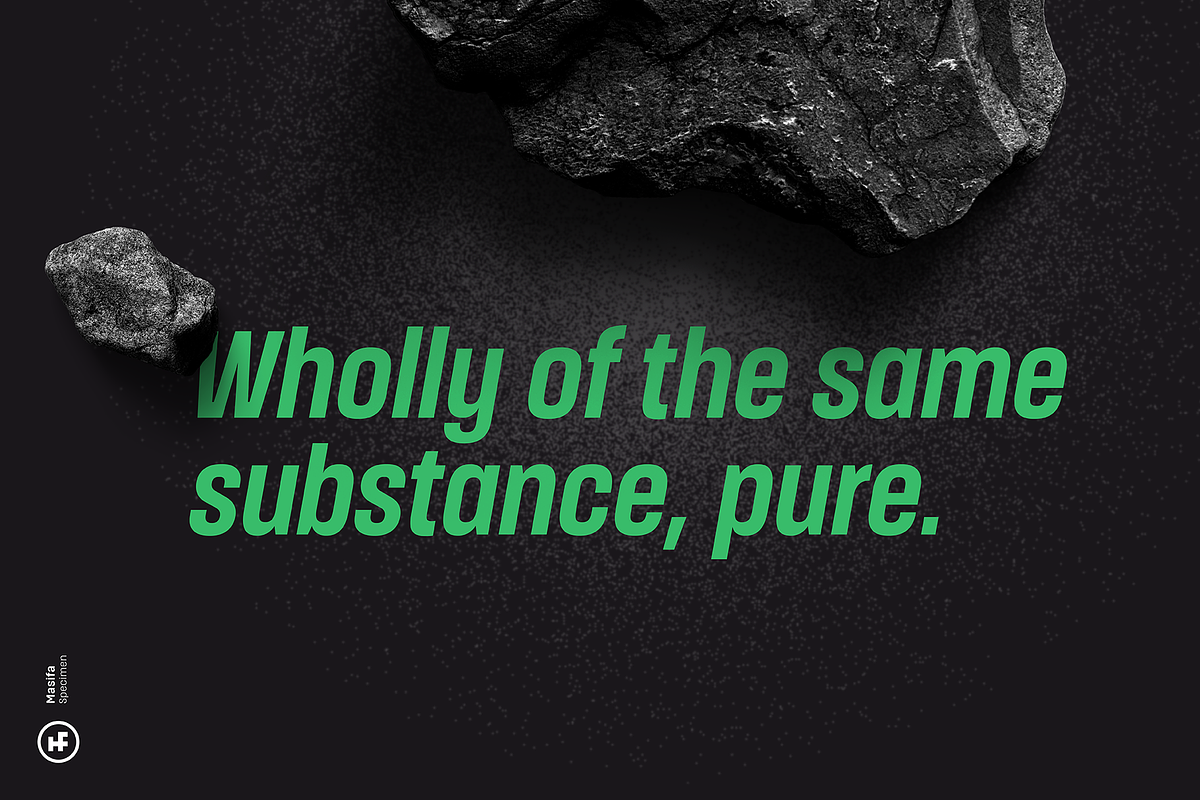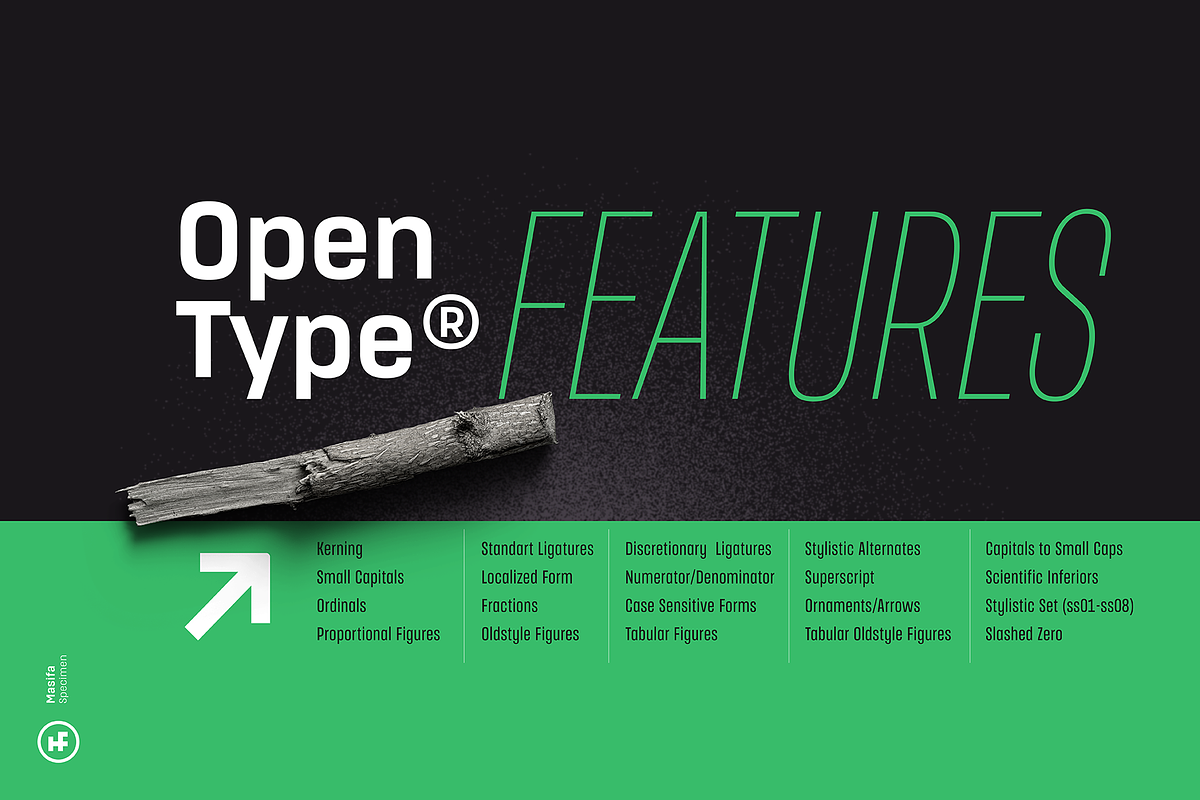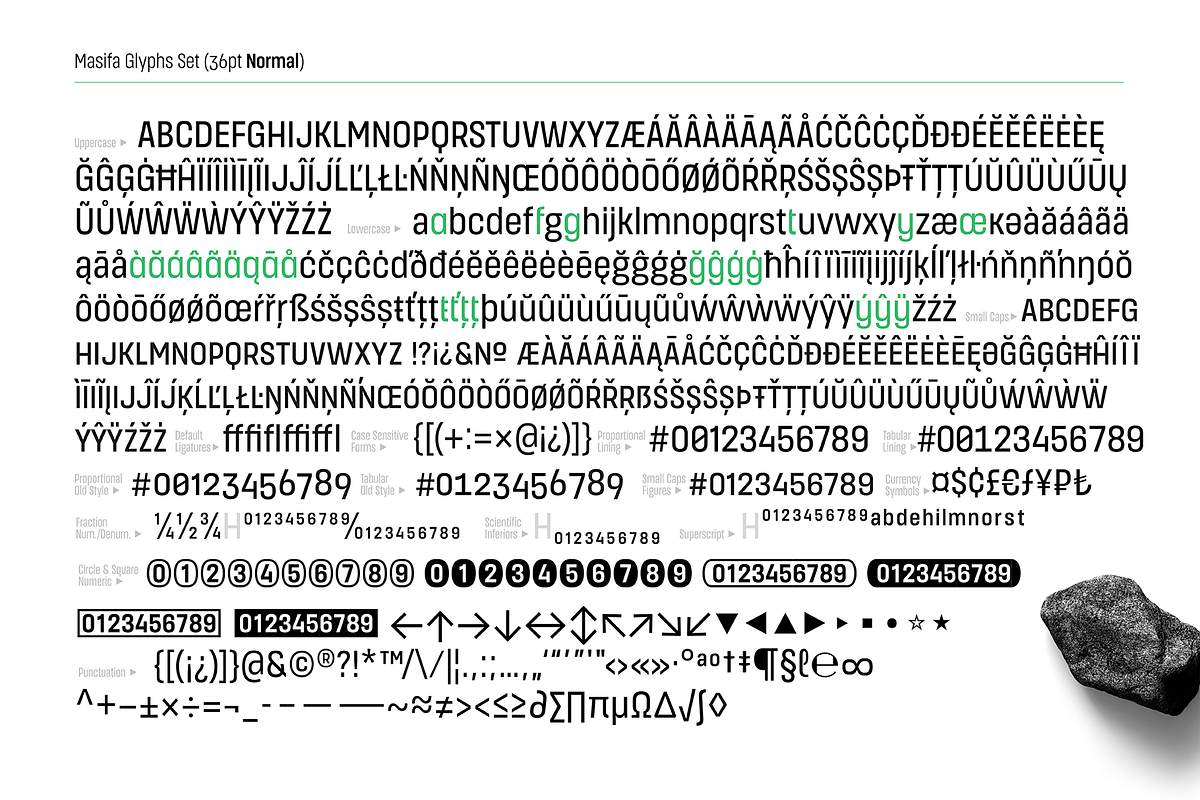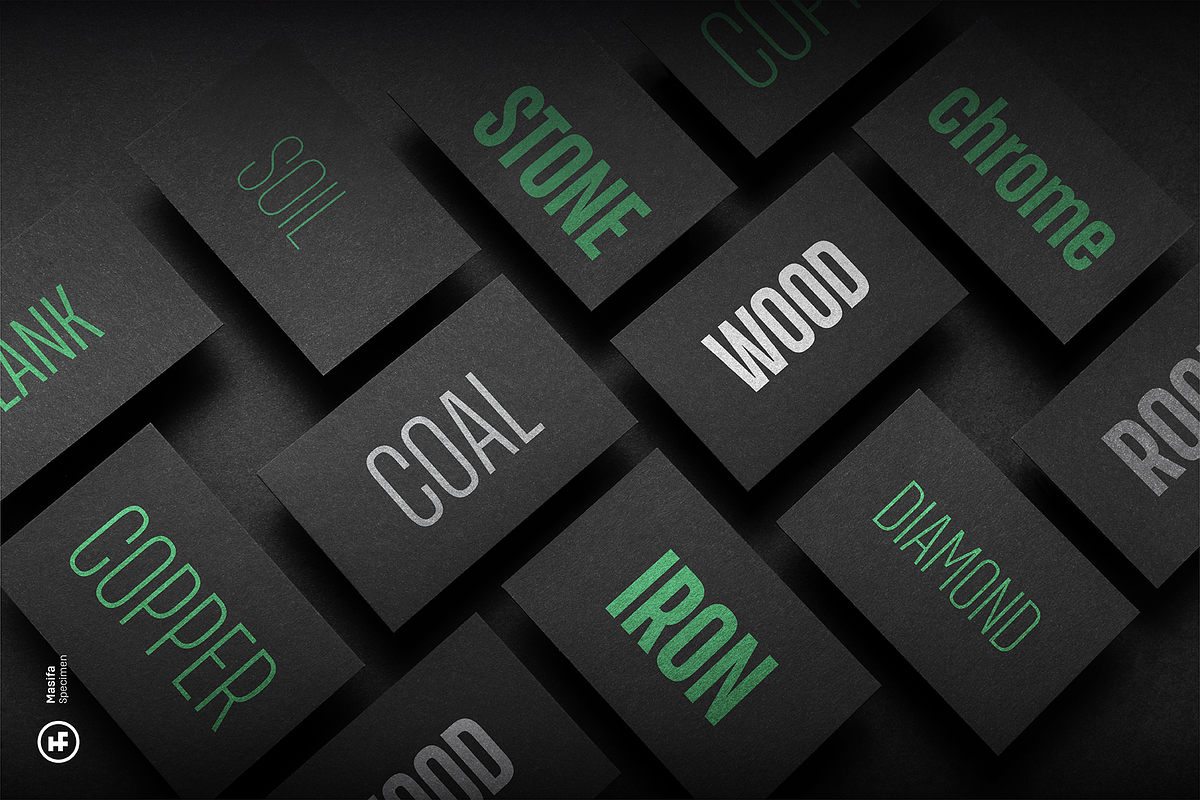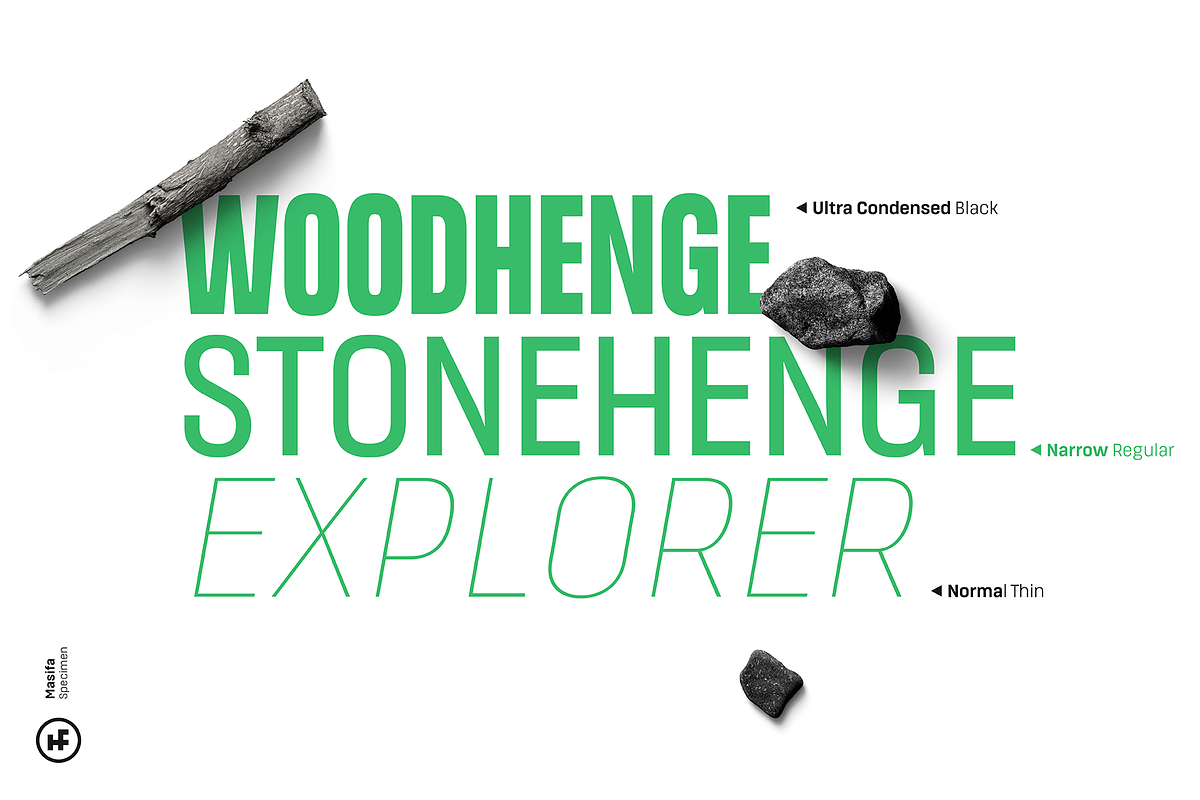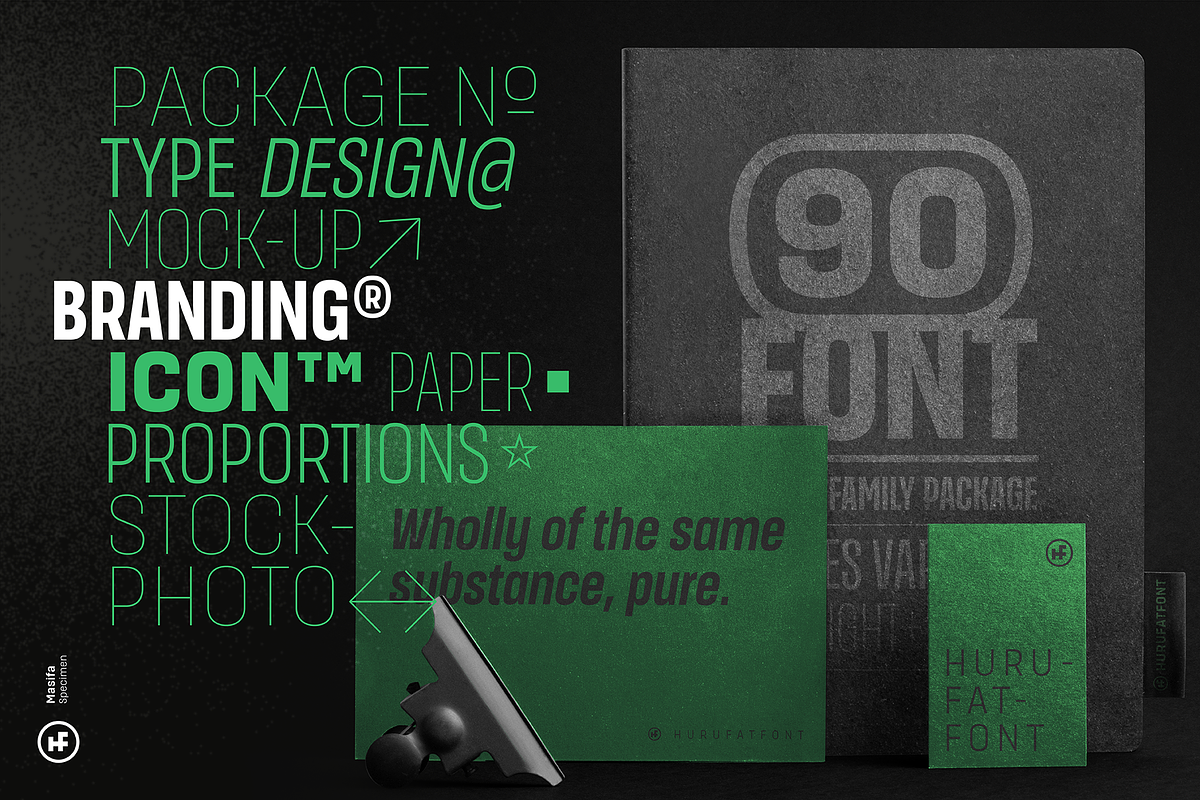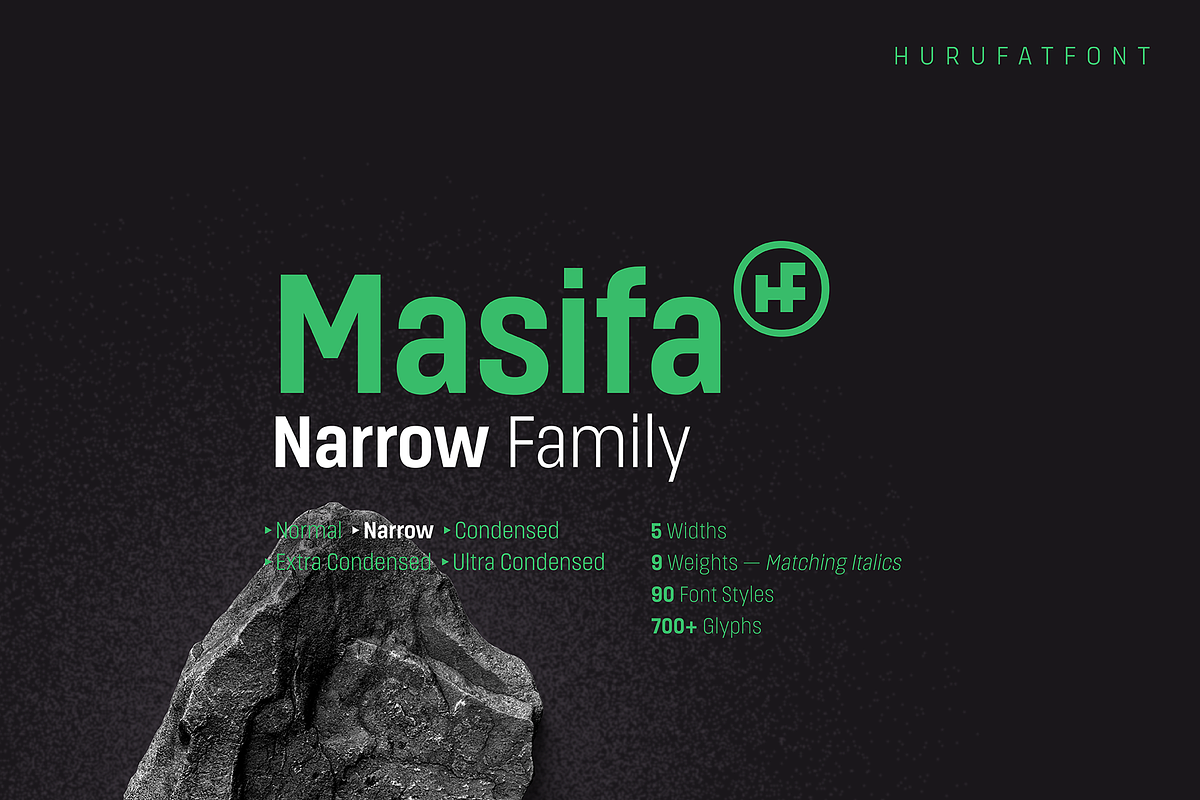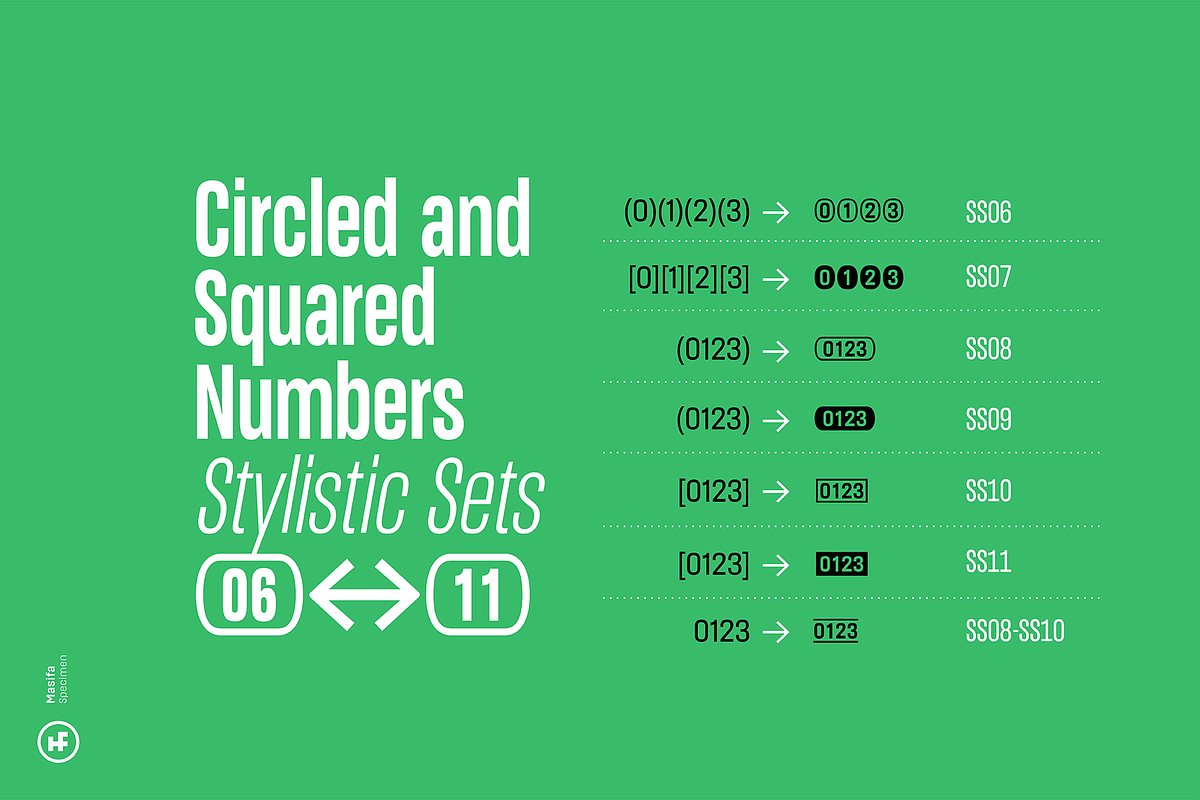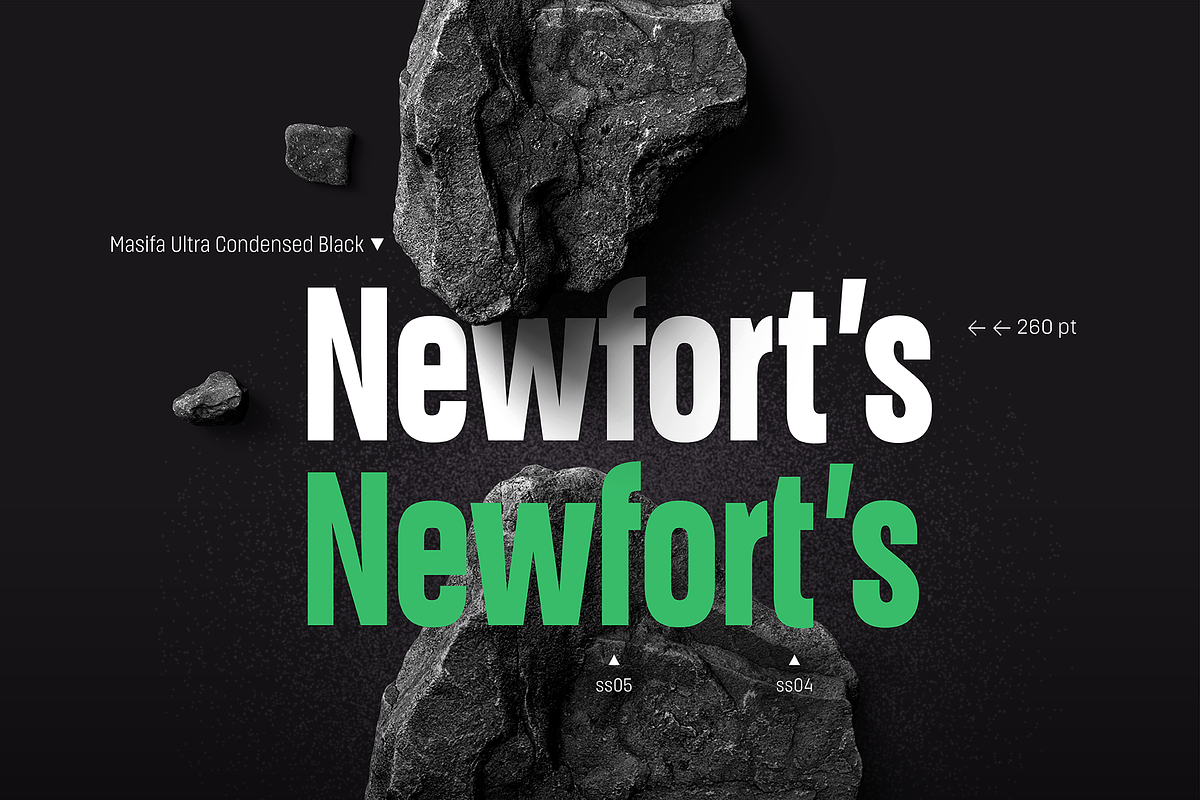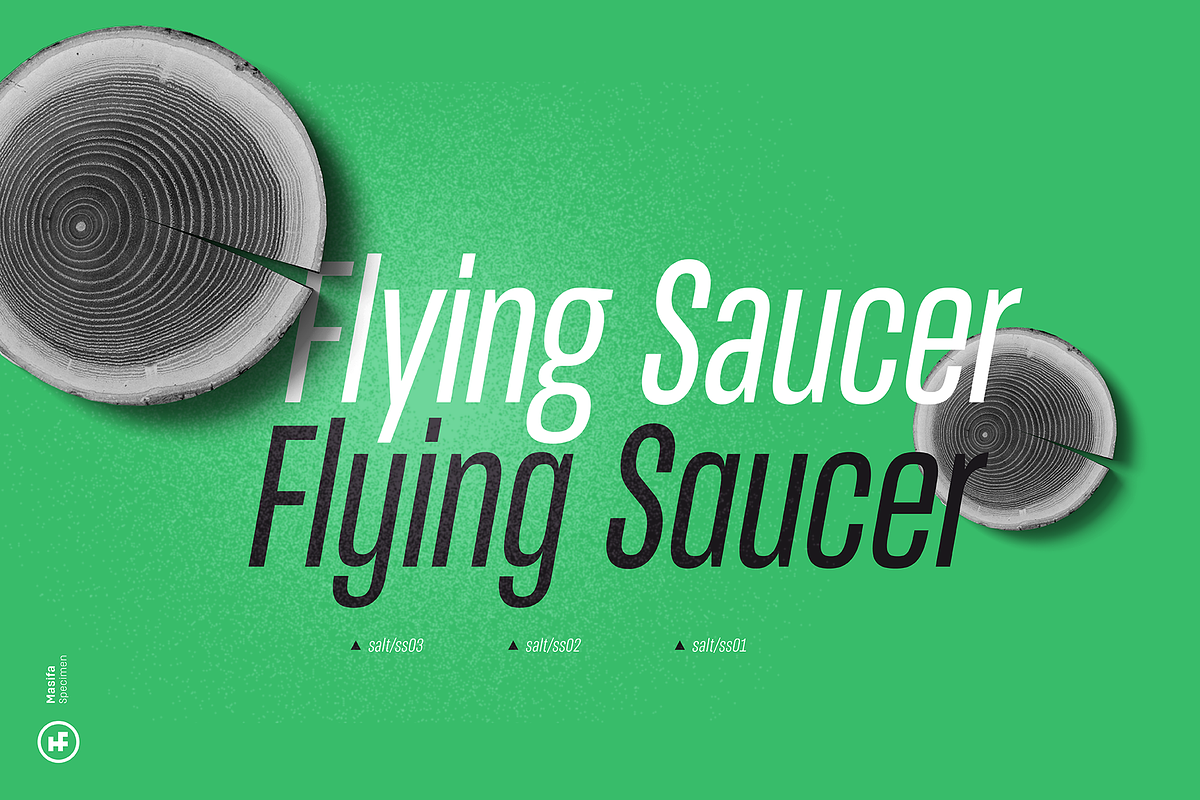
Masifa Narrow Family
Masifa has compact, simple, functional and neutral body structure. It has 5 widths from Normal to Ultra Condensed. Each width includes 9 weights from Hairline to Black and their matching italics. Also, every weight includes rich OpenType Features like Small Caps and custom number styles. Due to its large family, it is ideal for a wide range of usage from large-scale designs to small product labels.